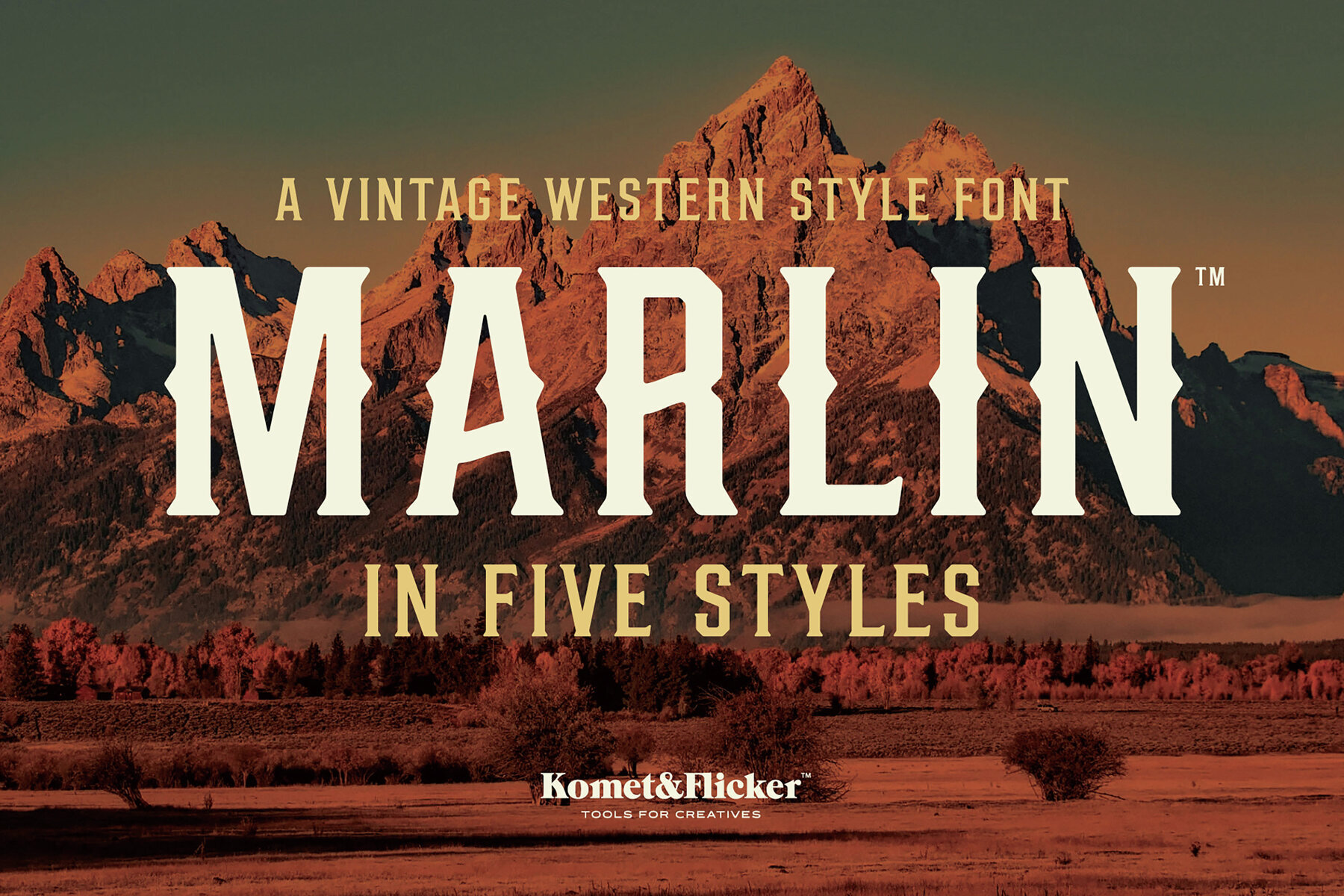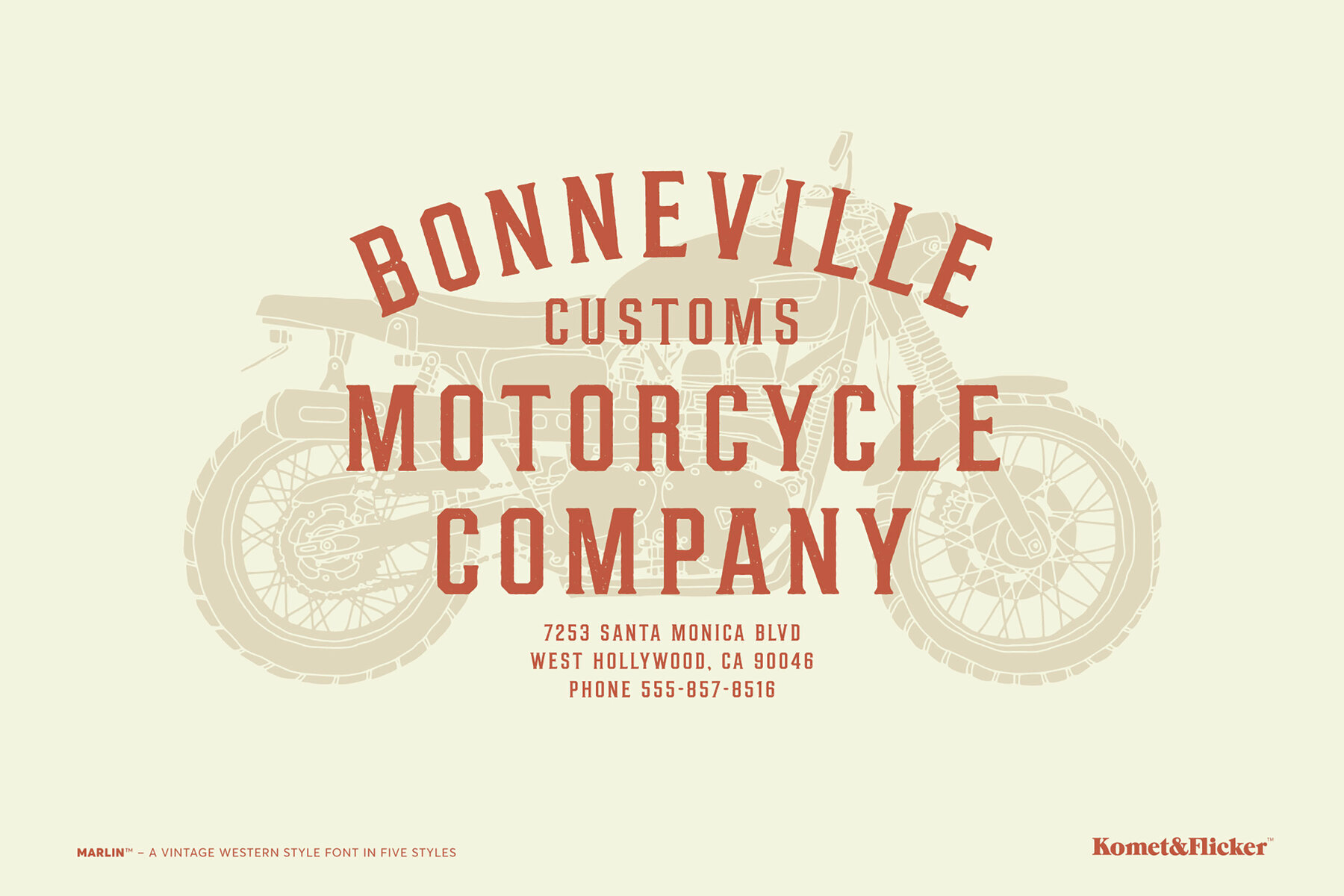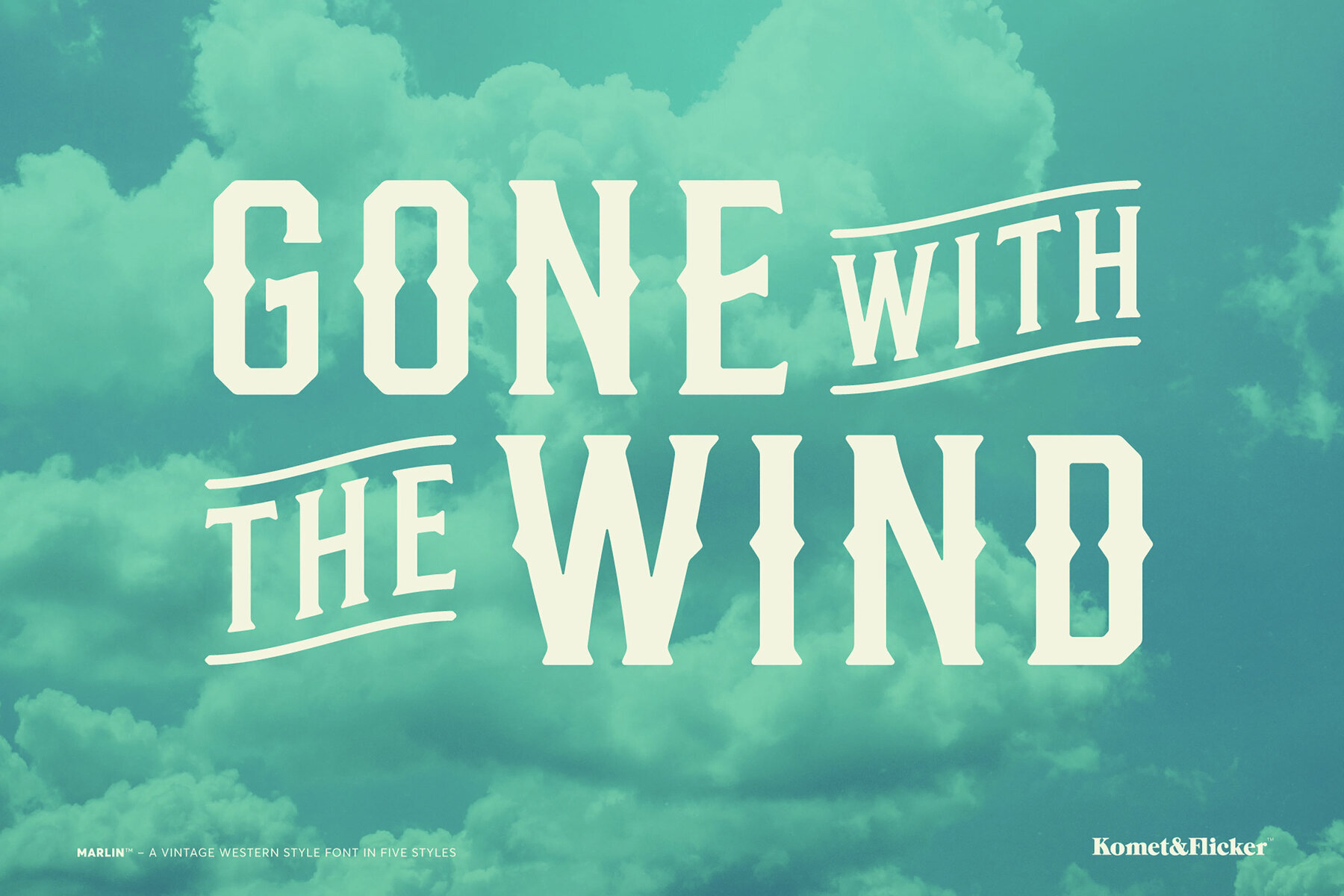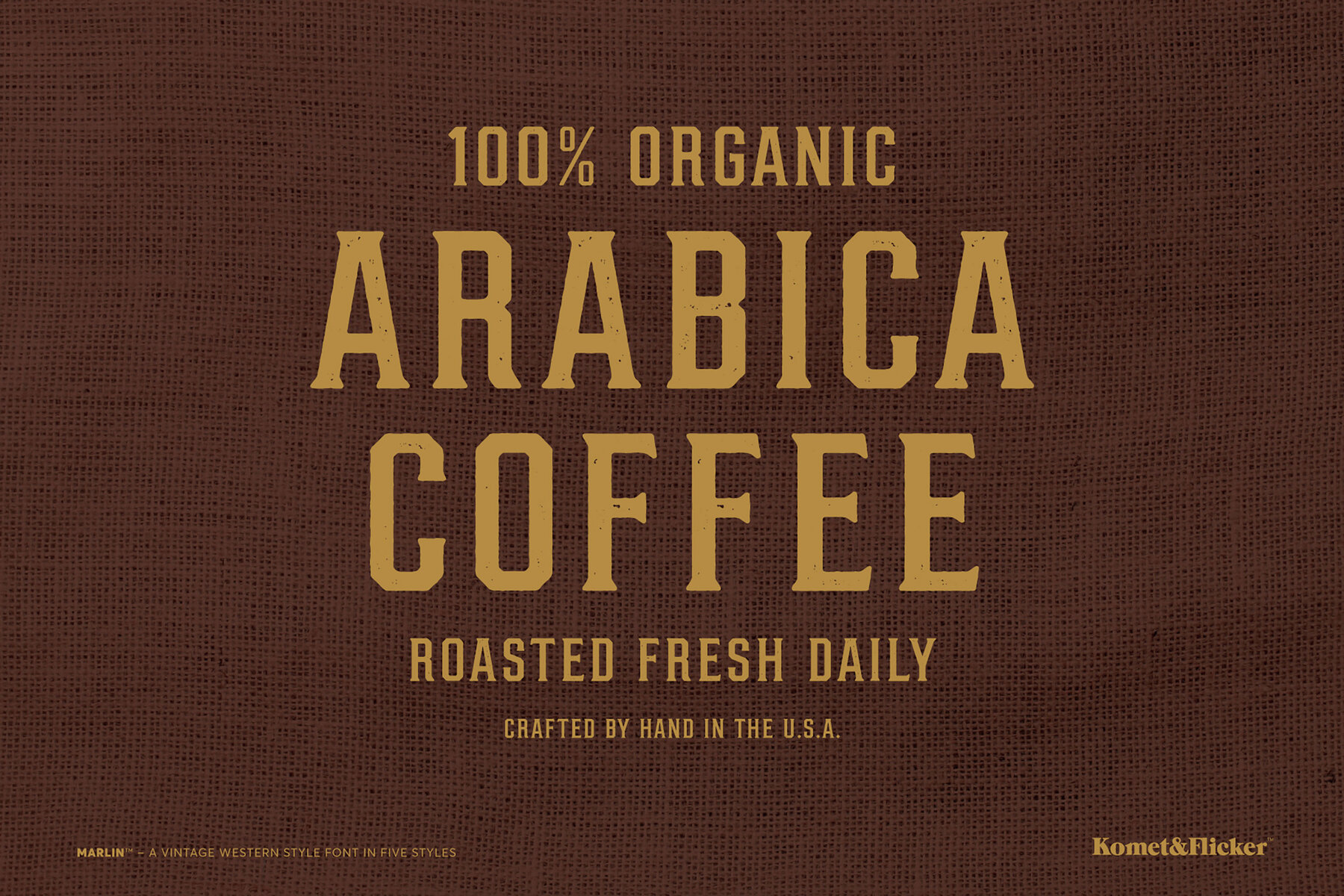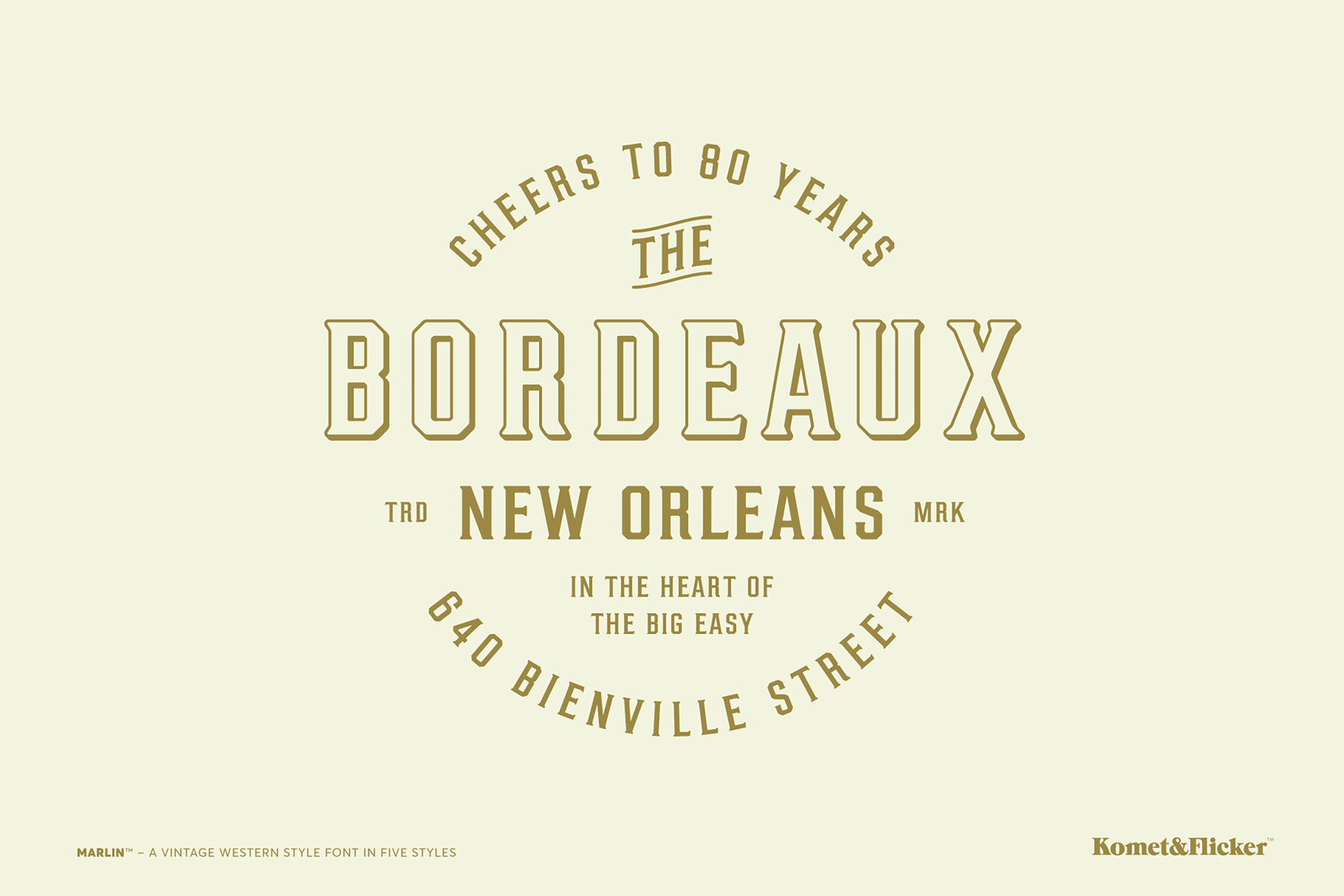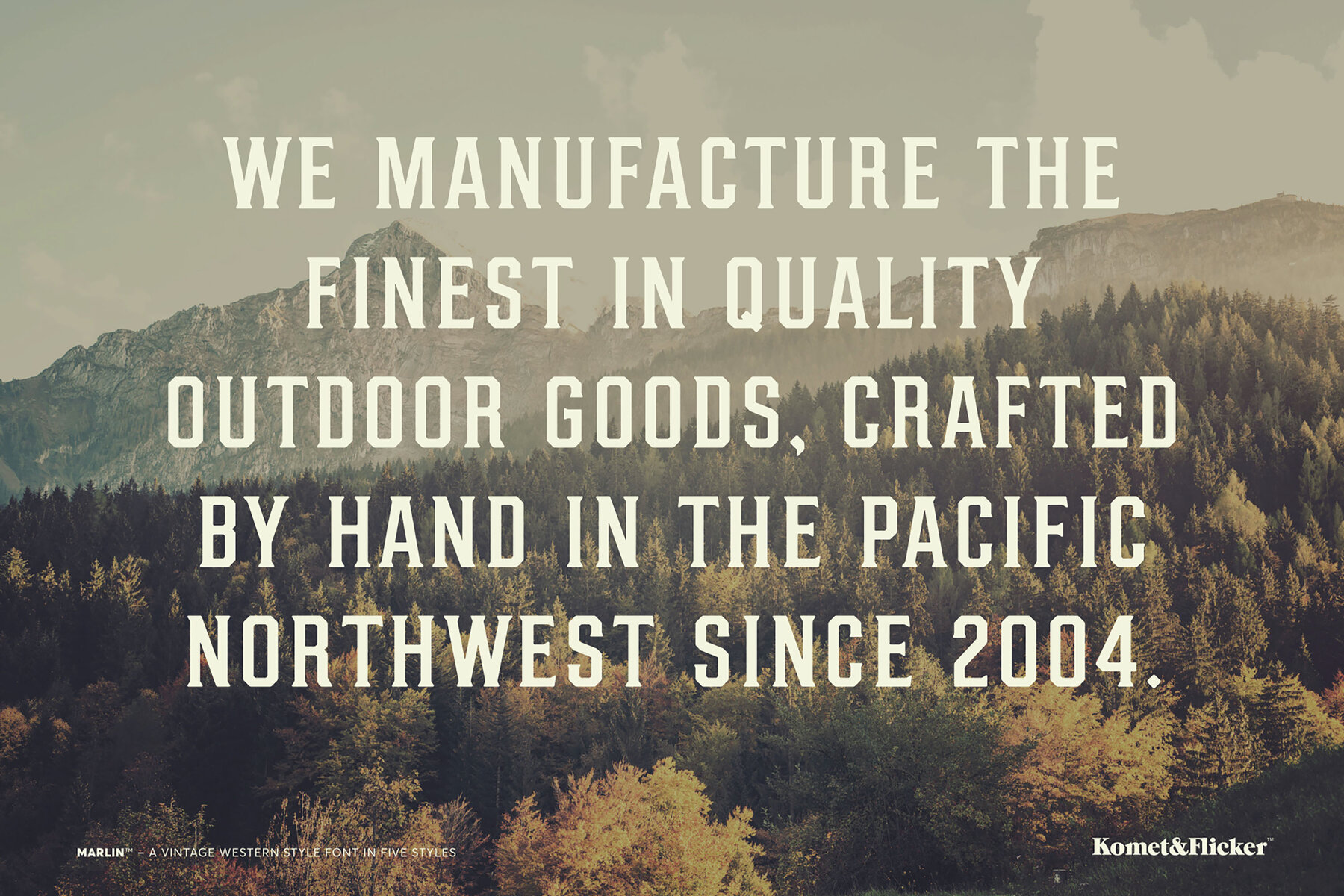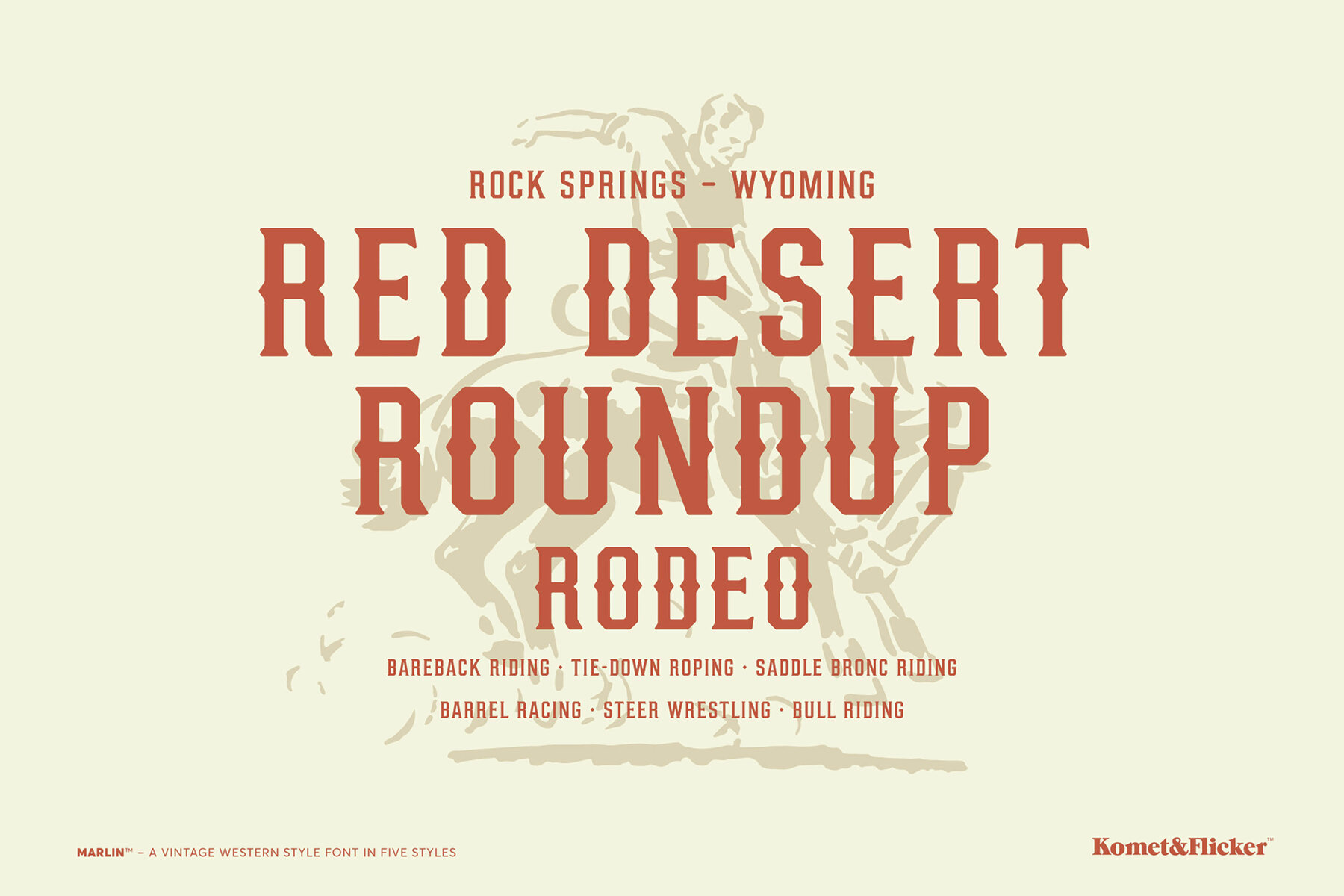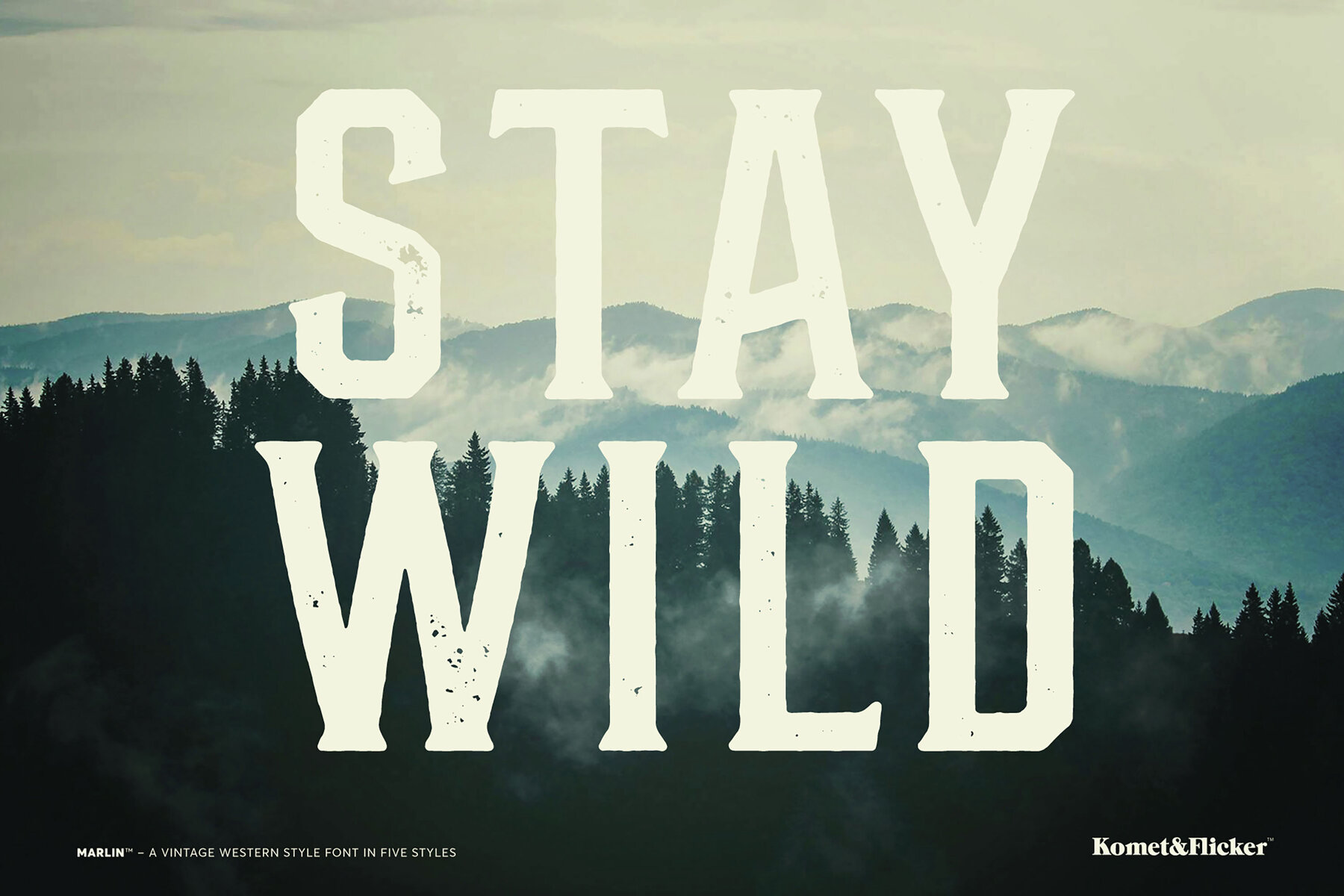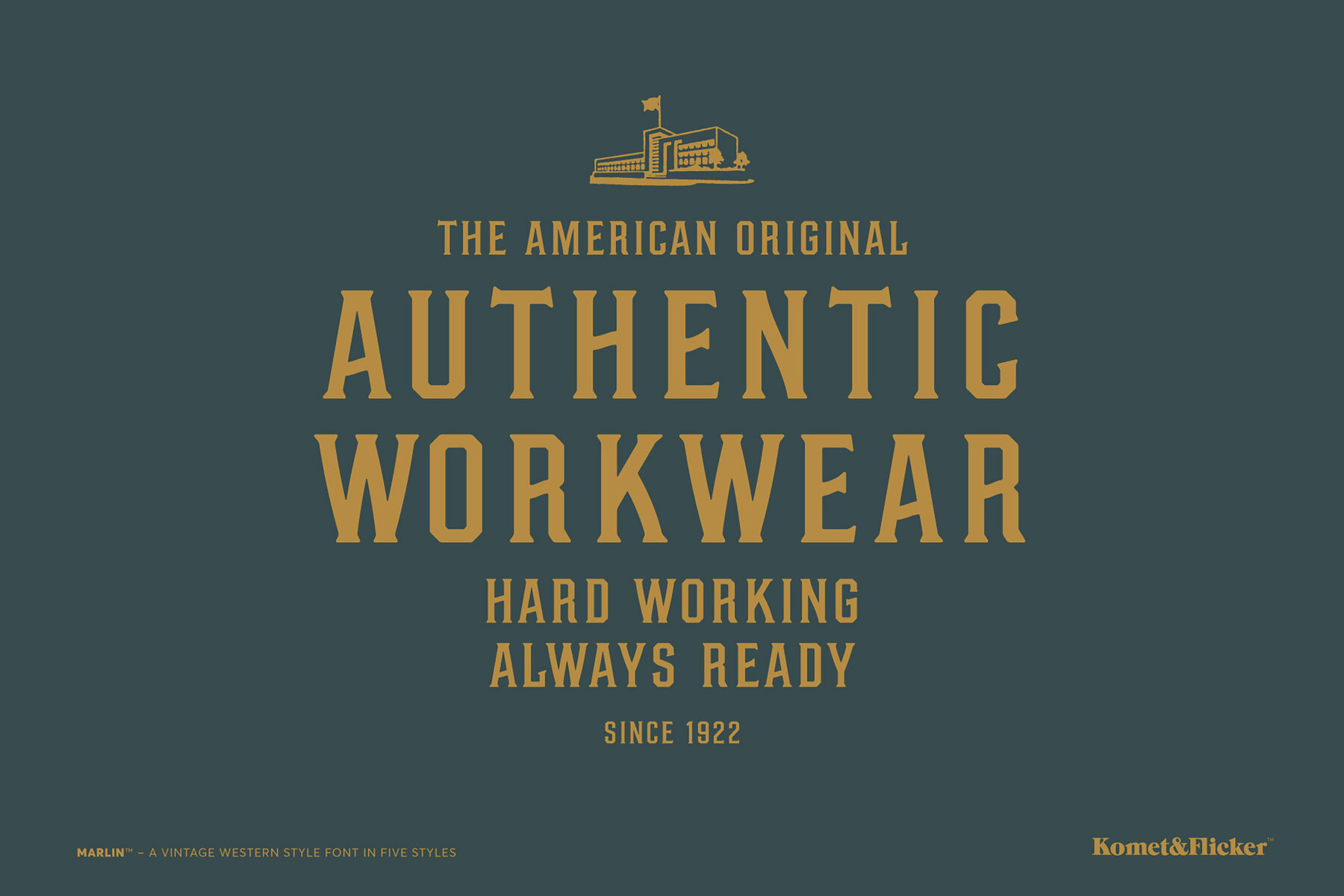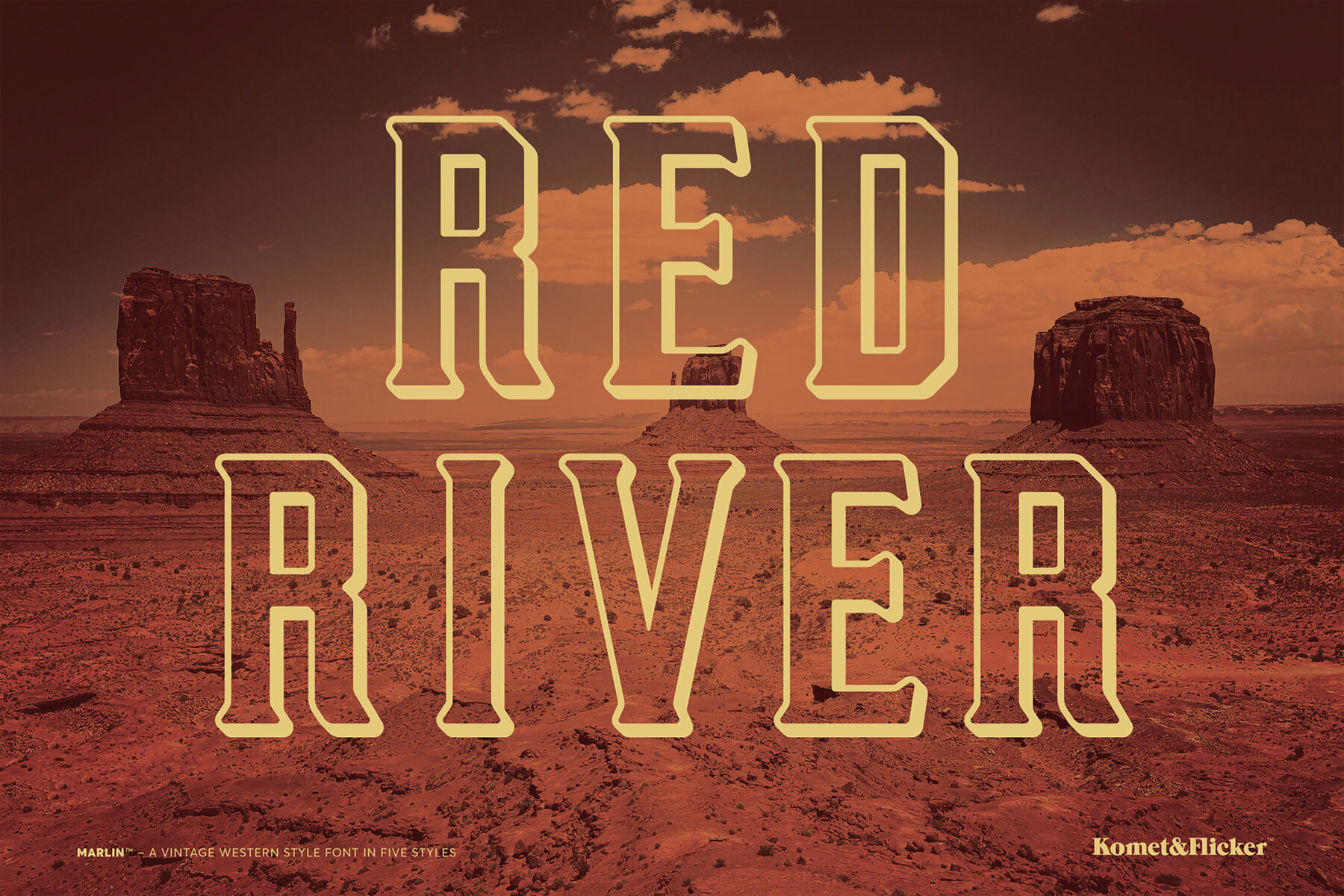
Marlin Font
Marlin is a vintage-inspired, condensed display font that takes cues from the rugged yet elegant aesthetics of the Wild West. Its design evokes the frontier spirit and meticulous detail found in historic signage, offering a nostalgic touch to contemporary projects. Ideal for businesses with a rustic, old-world appeal, Marlin is versatile enough for logos, branding, posters, packaging, and merchandise. Its charm lies in the seamless blend of vintage Americana with modern design sensibilities, making it a perfect choice for designers aiming to instill a sense of nostalgia or capture the Wild West's authentic flavor.
Available in five distinct styles—Regular, Ornate, Rough, Shadow Outline, and Shadow Base + Fill—Marlin provides ample flexibility for diverse design needs. The font features 22 alternate lowercase letter styles, allowing for creative combinations with uppercase characters. Additionally, a set of 23 custom connector words like "AND," "OF," and "THE" enhances the font's versatility. Note that the Shadow Fill and Shadow Base are separate fonts that combine to form a cohesive style. Custom glyphs are easily accessible in design software through the Type and Glyphs panels, making Marlin a user-friendly choice for designers seeking authenticity and style.